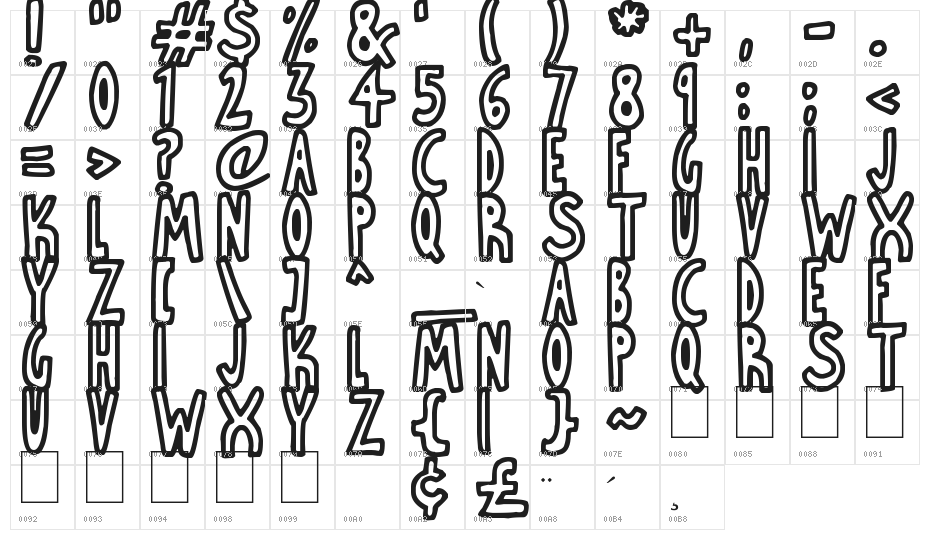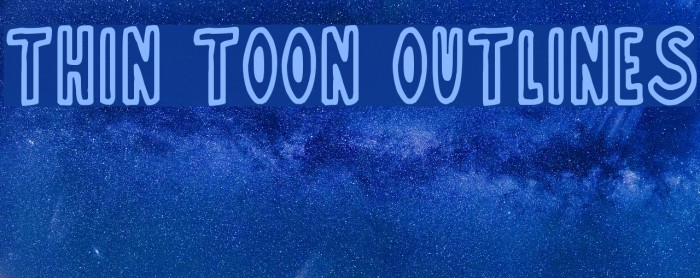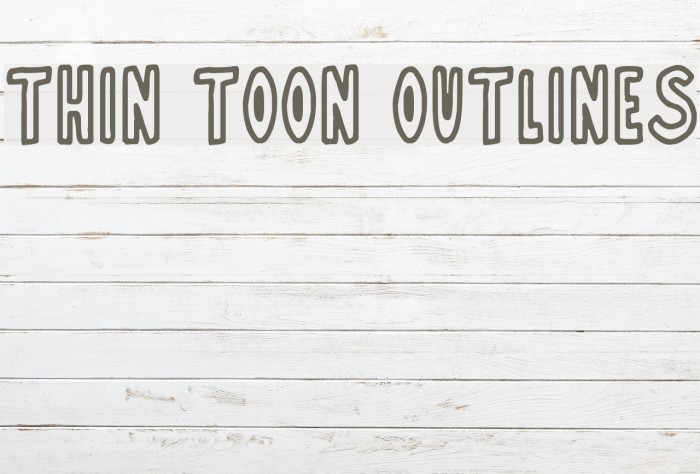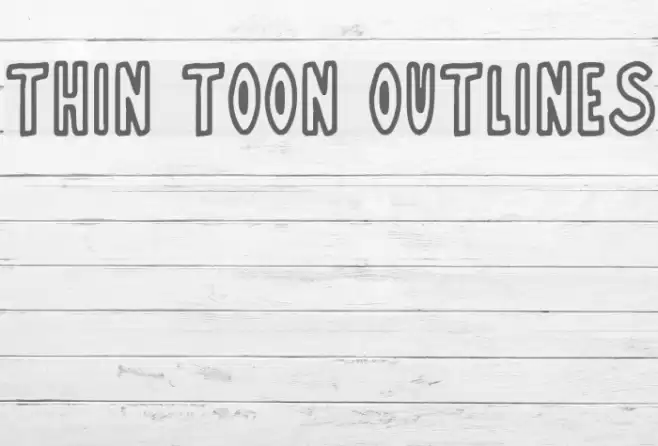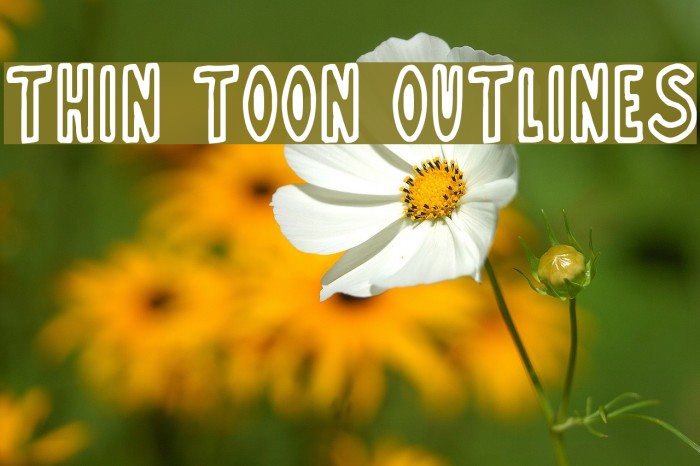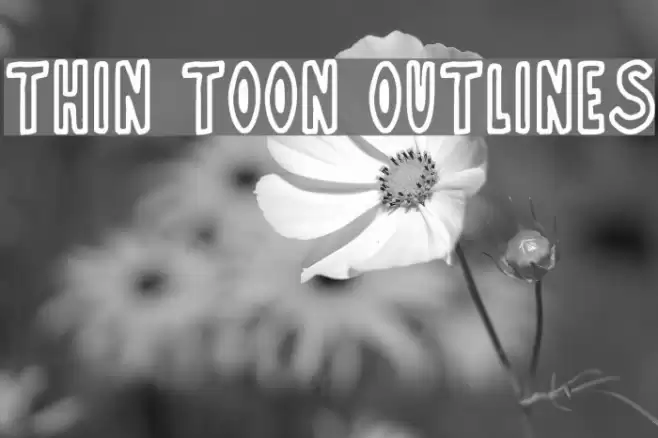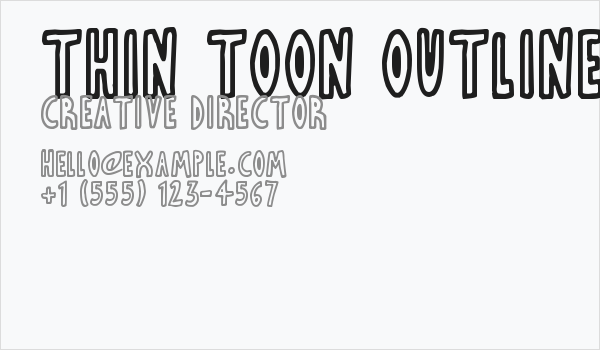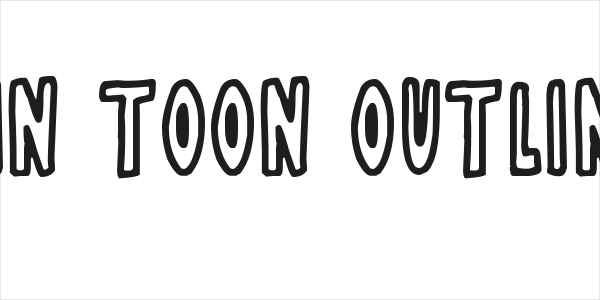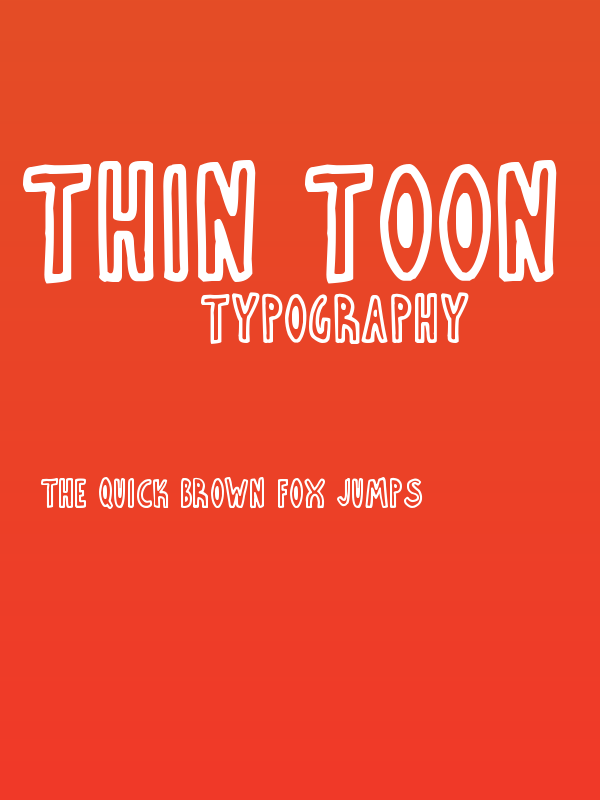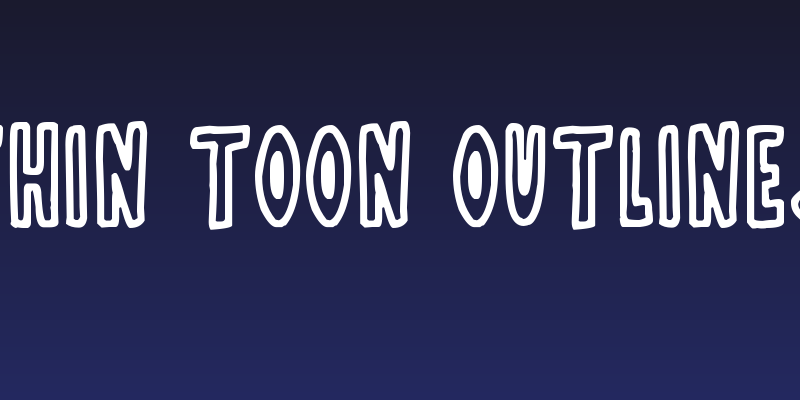
Thin Toon Outlines Font
Thin Toon Outlines Description
This playful and bold font features thick outlines that give it a cartoonish and whimsical appearance. The characters are uppercase and numerals, with a consistent thickness that creates a cohesive look. The rounded edges and exaggerated forms add a sense of fun and creativity, making it ideal for projects that require a lively and engaging typeface. The font's unique style is perfect for capturing attention and conveying a sense of humor or lightheartedness. Its bold presence ensures readability while maintaining a distinct personality.
| Proposed Projects | Ideal for children's books, comic strips, playful branding, and event posters. |